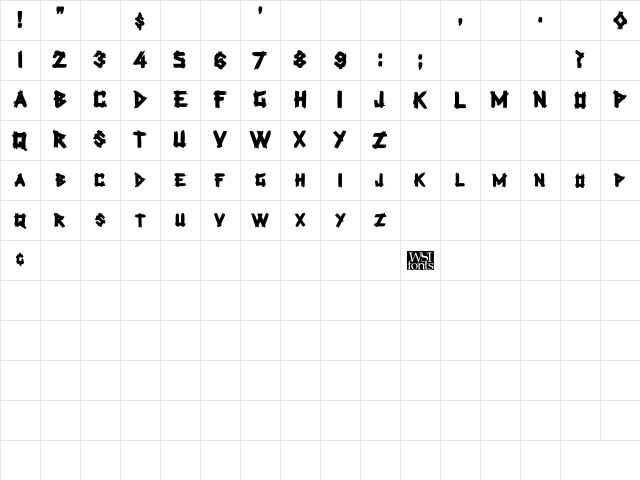
PlanksDisplayCaps Bold Free Font
Design Context for PlanksDisplayCaps
PlanksDisplayCaps is built around its visual character rather than neutral utility - its distinctive forms are designed to make an impression at display sizes. Its bold stroke weight gives it real presence on the page.
Font Pairing: Pair with a clean neutral sans-serif for body copy to let PlanksDisplayCaps's character lead without overwhelming the composition.
Pro Tip: Use PlanksDisplayCaps exclusively at display sizes - it was designed to be seen, not read at length. Let a neutral companion handle body copy.